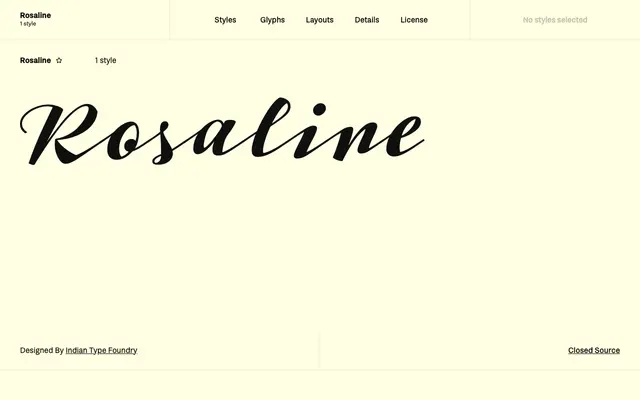
Rosaline
A connected brush-script by Indian Type Foundry with wide letterforms, high stroke contrast and a lively bouncing baseline suited to identity and stationery work.
Inspired by brush-lettering, Rosaline uses connected letterforms that link continuously across a word, including the '@' sign, making e-mail address settings look hand-written. Its oldstyle numerals set it apart from most informal scripts, and the rhythmic bounce in the baseline gives text an air of having been written quickly but confidently. A single Regular style covers 135 languages across an extended Latin range.
Fontshare categorises it as Script; it is a connected, brush-lettered casual script with high stroke contrast and a bouncy baseline, placing it firmly in the informal script tradition.